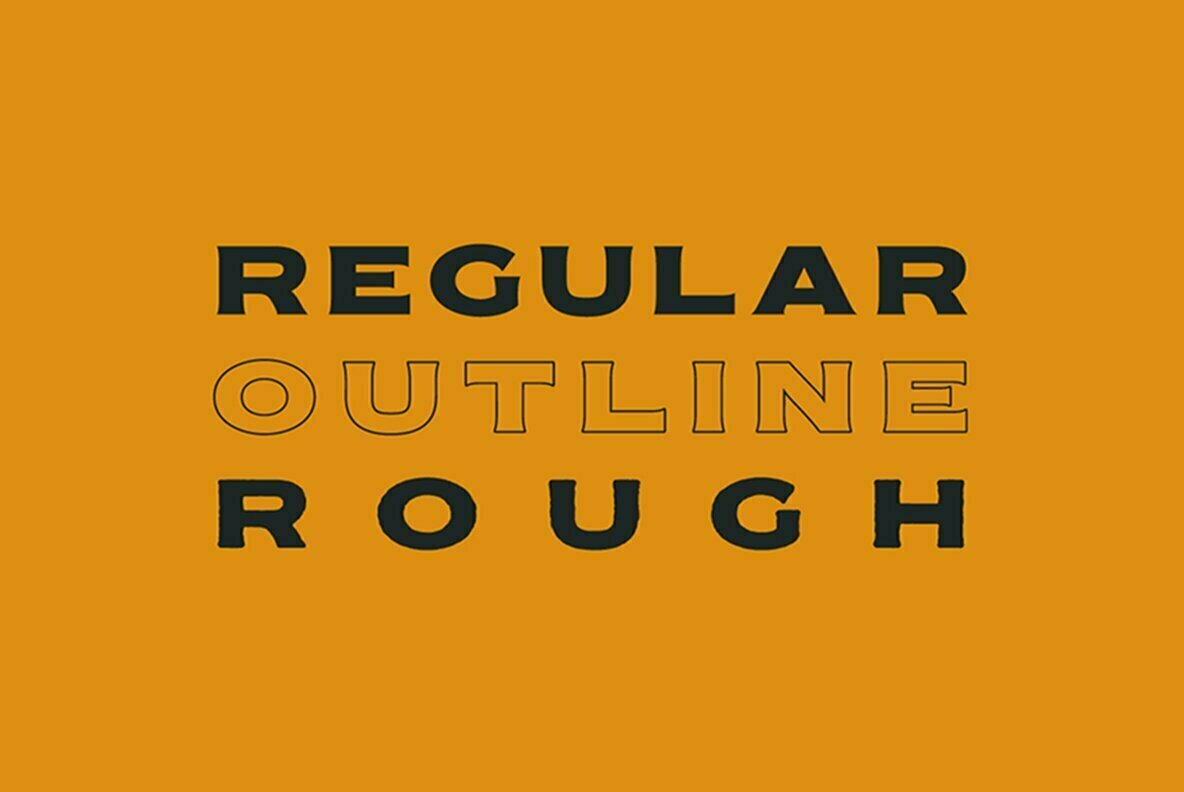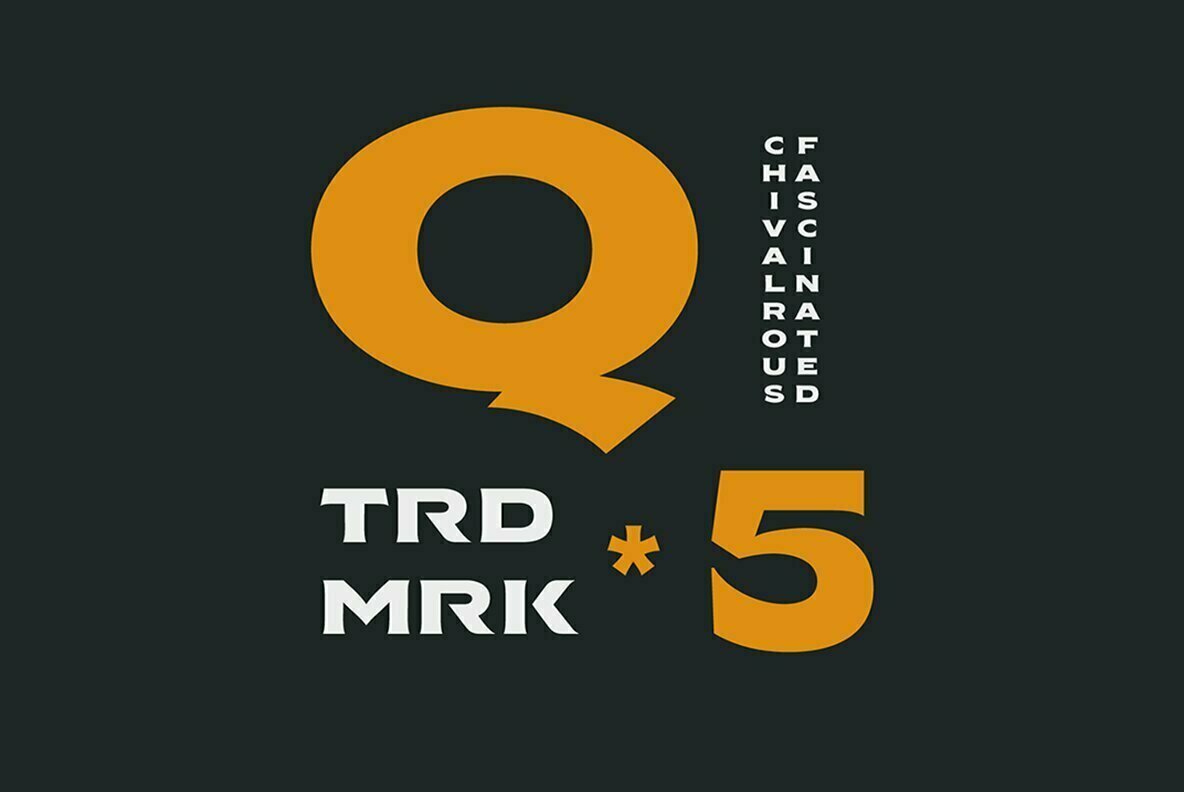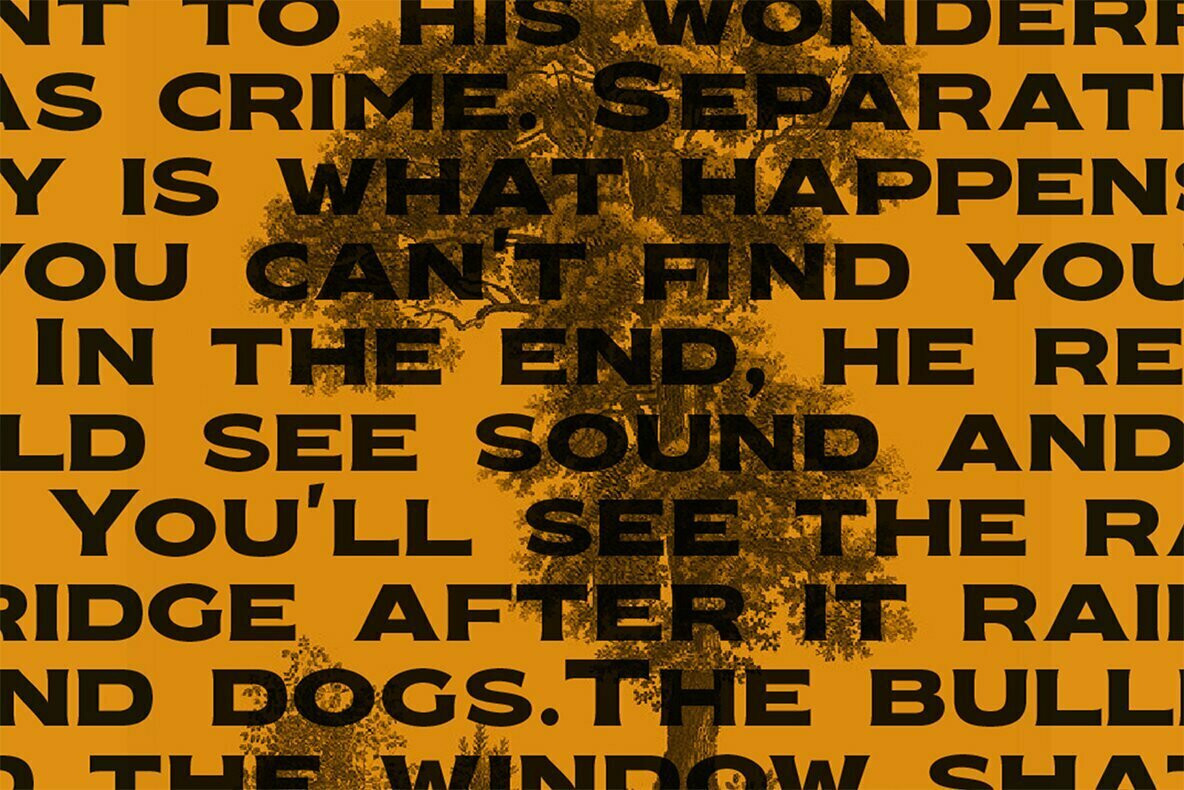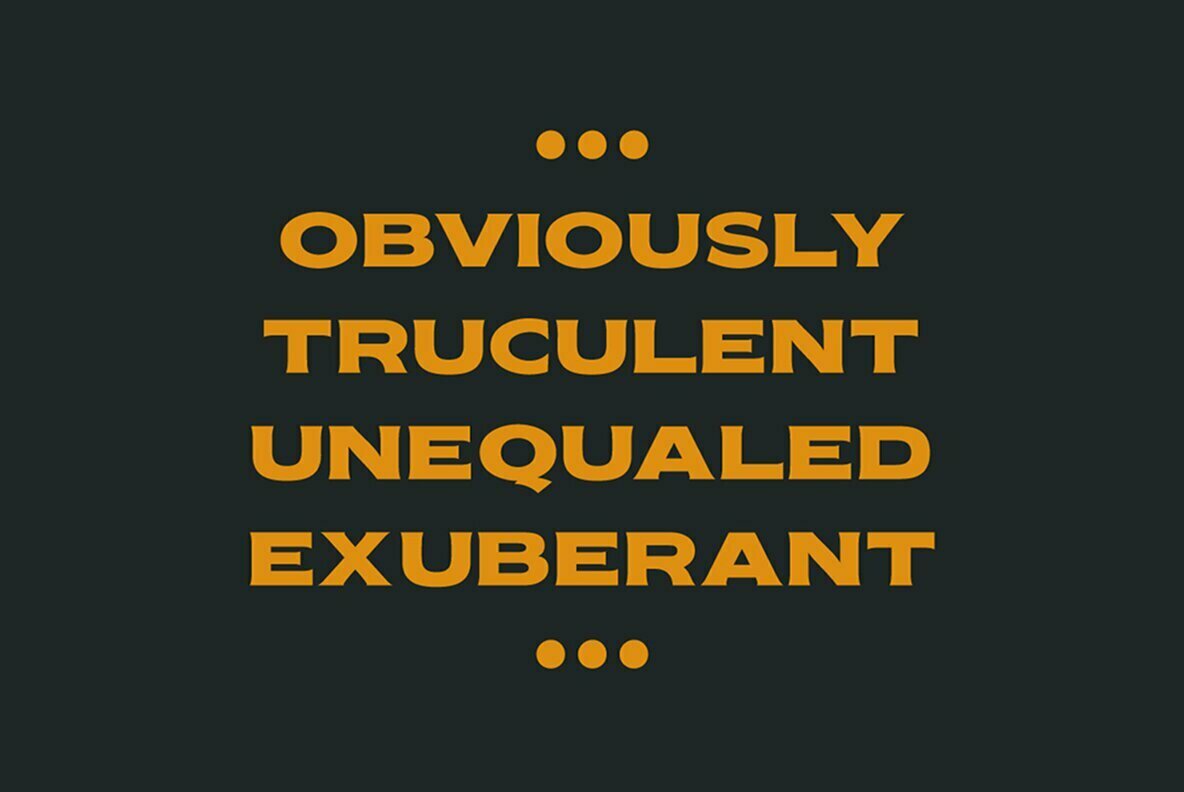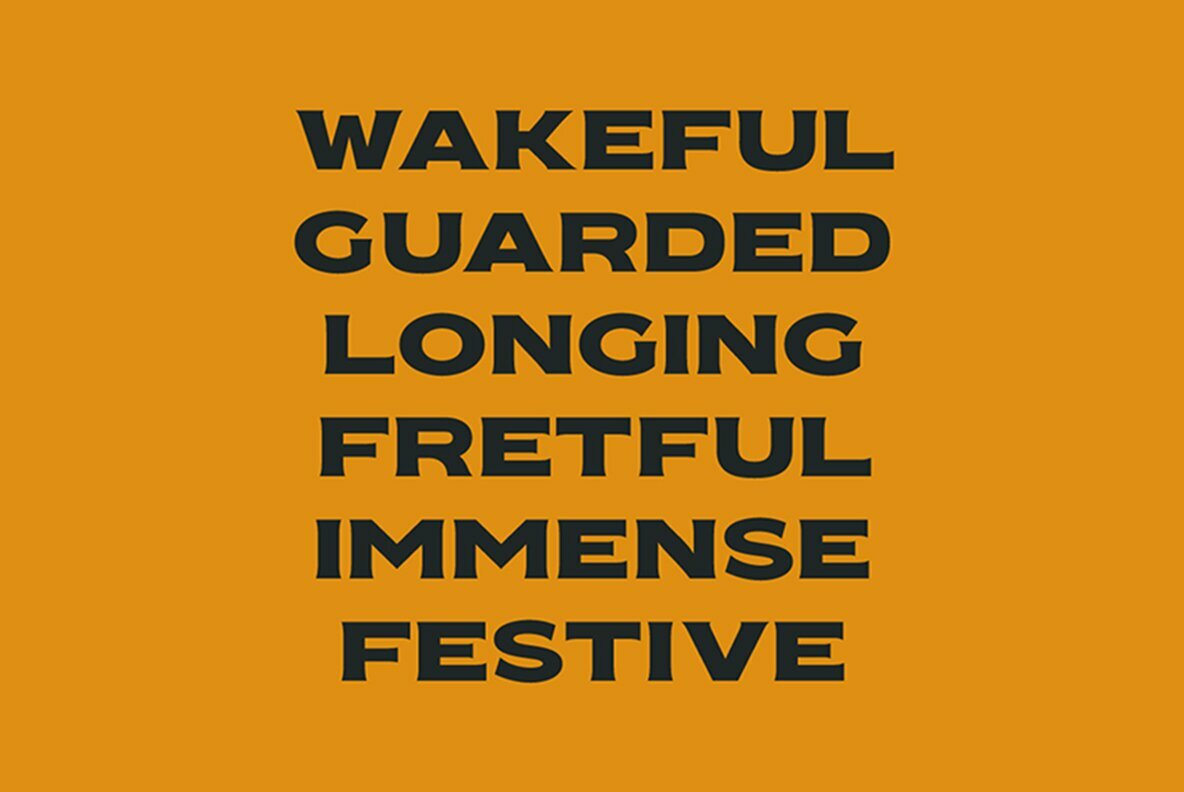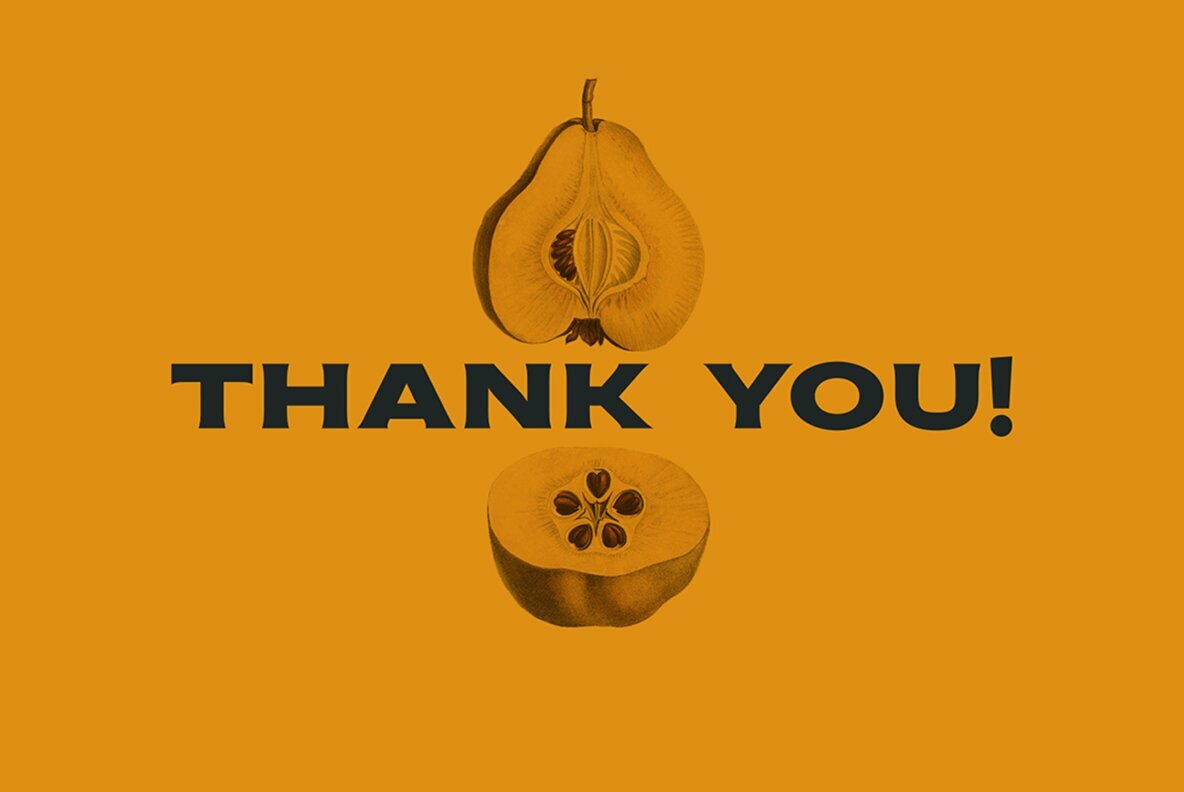
Nakara Serif Font
Nakara Serif is an all-caps modern serif typeface known for its robust and impactful appearance. It is perfectly crafted to bring a solid presence to headlines, logos, branding, and more, making it an ideal choice for designers aiming for strength and clarity in their projects. With three distinctive styles—Regular, Outline, and Rough—Nakara Serif offers flexibility to enhance your creative vision.Nakara Serif Typeface: Bold Elegance